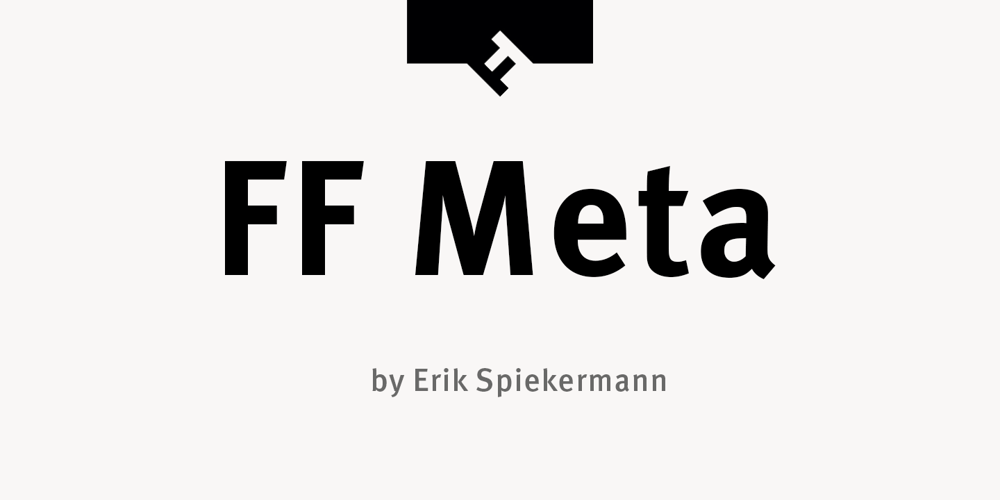
FF Meta Font Family was designed by Erik Spiekermann and published by FontFont. FF Meta contains 28 styles and family package options. German type designer Erik Spiekermann, created this sans FontFont between 1991 and 2010. The family has 28 weights, ranging from Hairline to Black in Condensed and Normal (including italics) and is ideally suited for advertising and packaging, book text, editorial and publishing, logo, branding and creative industries, small text as well as web and screen design. FF Meta provides advanced typographical support with features such as ligatures, small capitals, alternate characters, case-sensitive forms, fractions, and super- and subscript characters. It comes with a complete range of figure set options—oldstyle and lining figures, each in tabular and proportional widths. As well as Latin-based languages, the typeface family also supports the Cyrillic, Greek, and Hebrew writing systems. FF Meta Variable are font files which are featuring two axis and have a preset instance from Hairline to Black and Condensed to Roman In 2011, FF Meta was added to the MoMA Architecture and Design Collection in New York. This FontFont is a member of the FF Meta super family, which also includes FF Meta Correspondence , FF Meta Headline , and FF Meta Serif .FF Meta® font field guide including best practices, font pairings and alternatives.Featured in: Best Fonts for Resumes